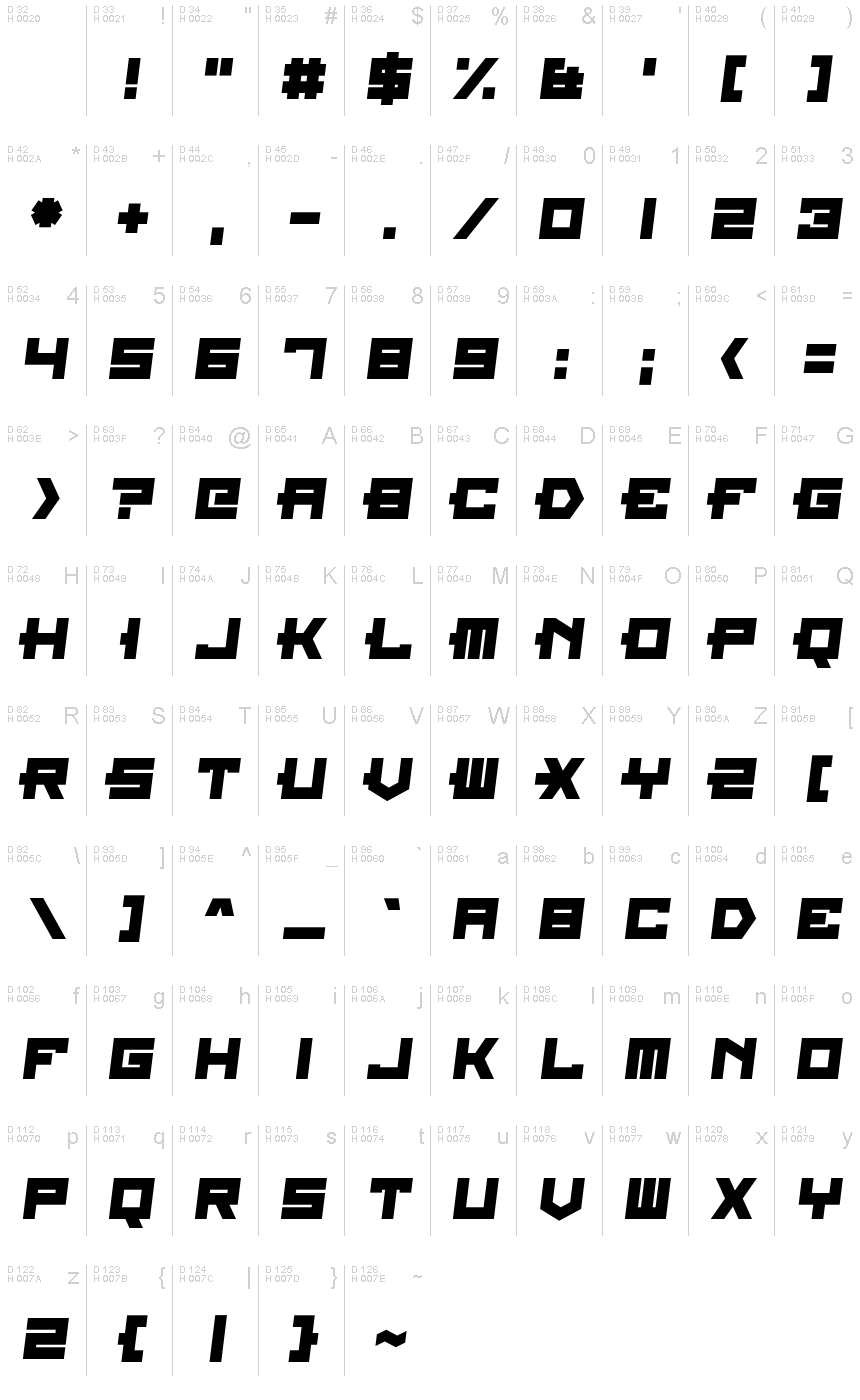
Exuding a captivating techno vibe, "For The World" by Chequered Ink captivates with its bold, expanded letterforms. This display font's striking aesthetics command attention, blending modern functionality with a dynamic, futuristic flair. Its powerful, geometric design language evokes a sense of strength and innovation, making it a compelling choice for a wide range of projects.
"For The World" shines in headlines, branding, and any application seeking to convey a bold, technologically-driven aesthetic. Its expanded proportions and bold weight lend themselves to impactful visual statements, elevating designs with a distinct, attention-grabbing personality.